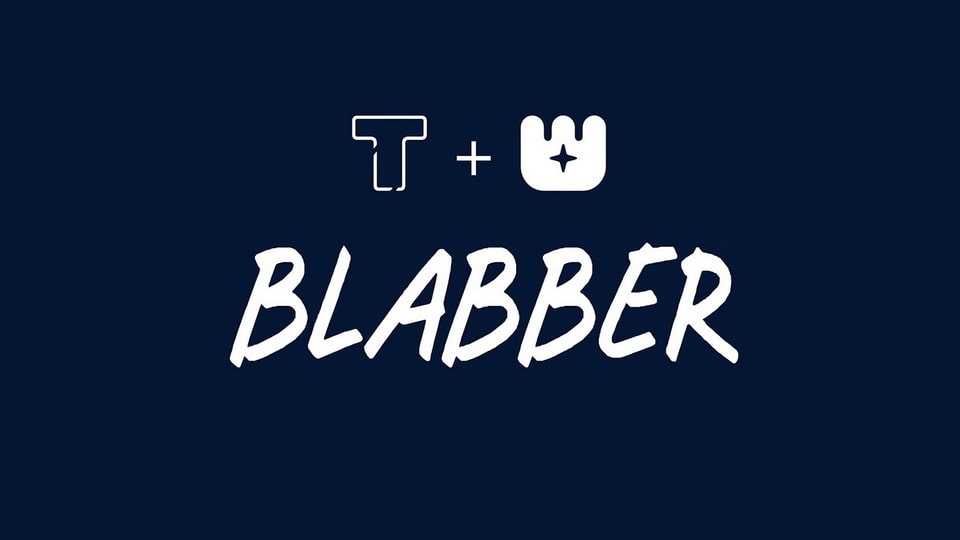
Download LT Blabber font, a handwritten typeface that is suitable for character dialogs in comic books. LT Blabber typeface is a unique take of an artist’s original handwritten font.